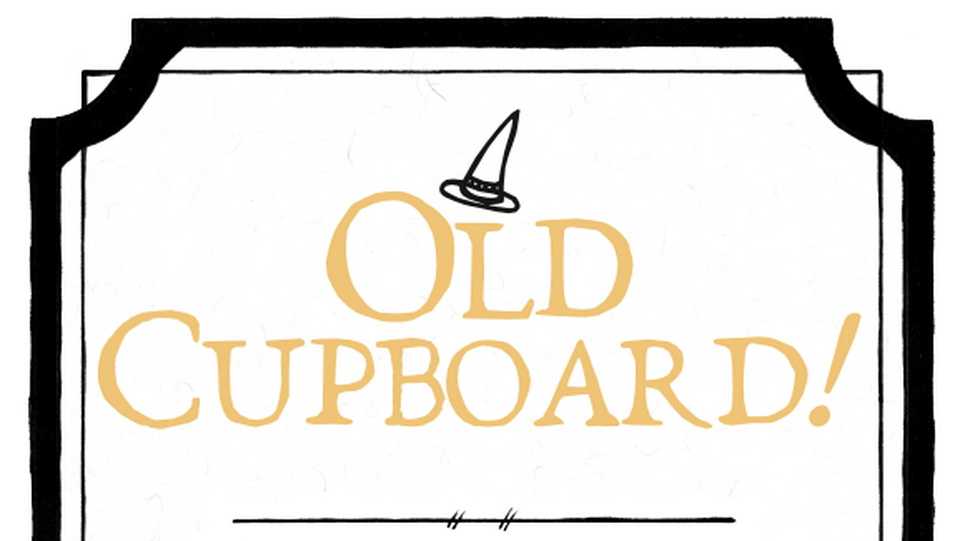
Download Old Cupboard font, a serif typeface made by hand in the style of EB Garamond. Old Cupboard is a display font, which means it’s best used for titles and headers.